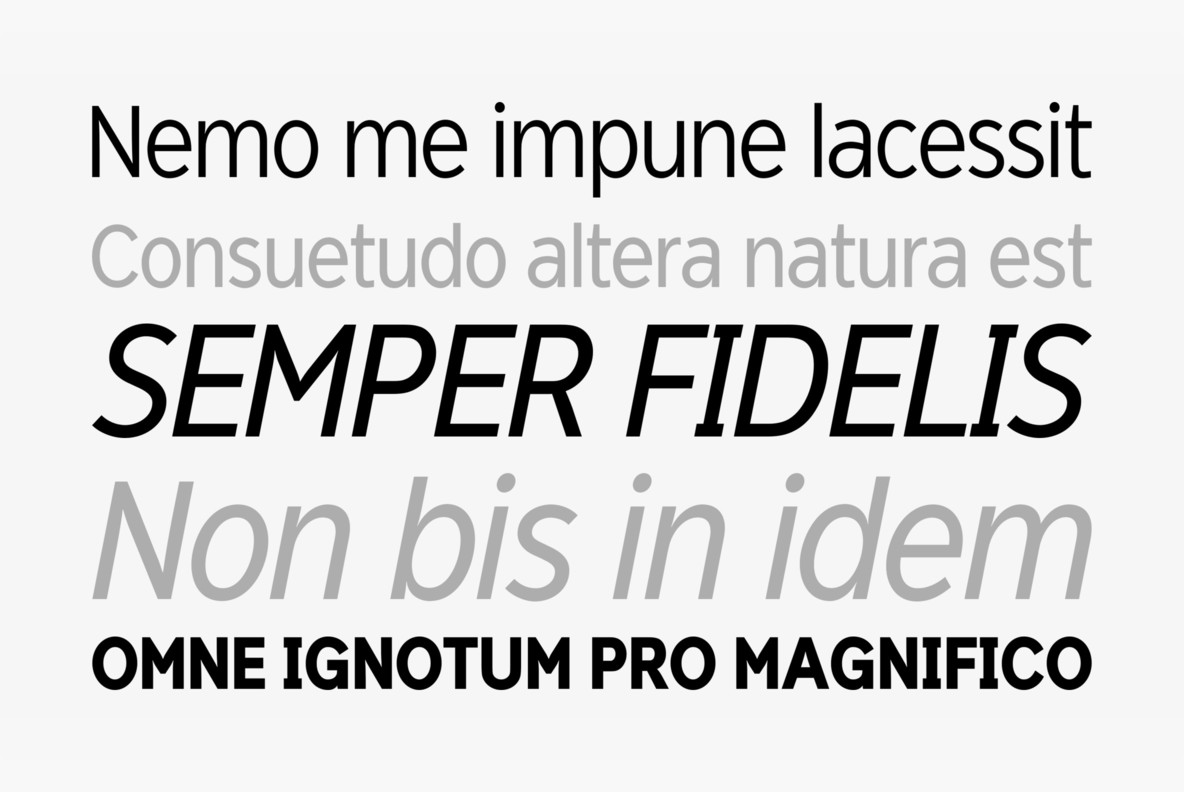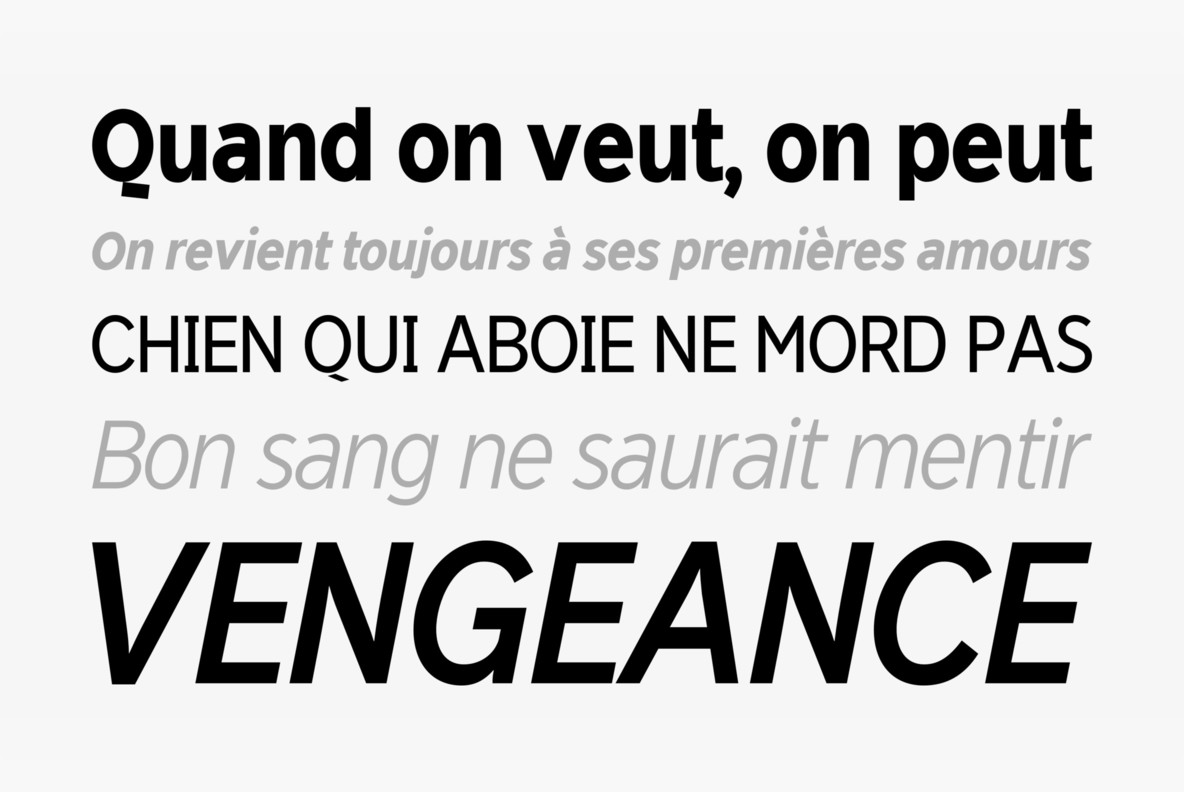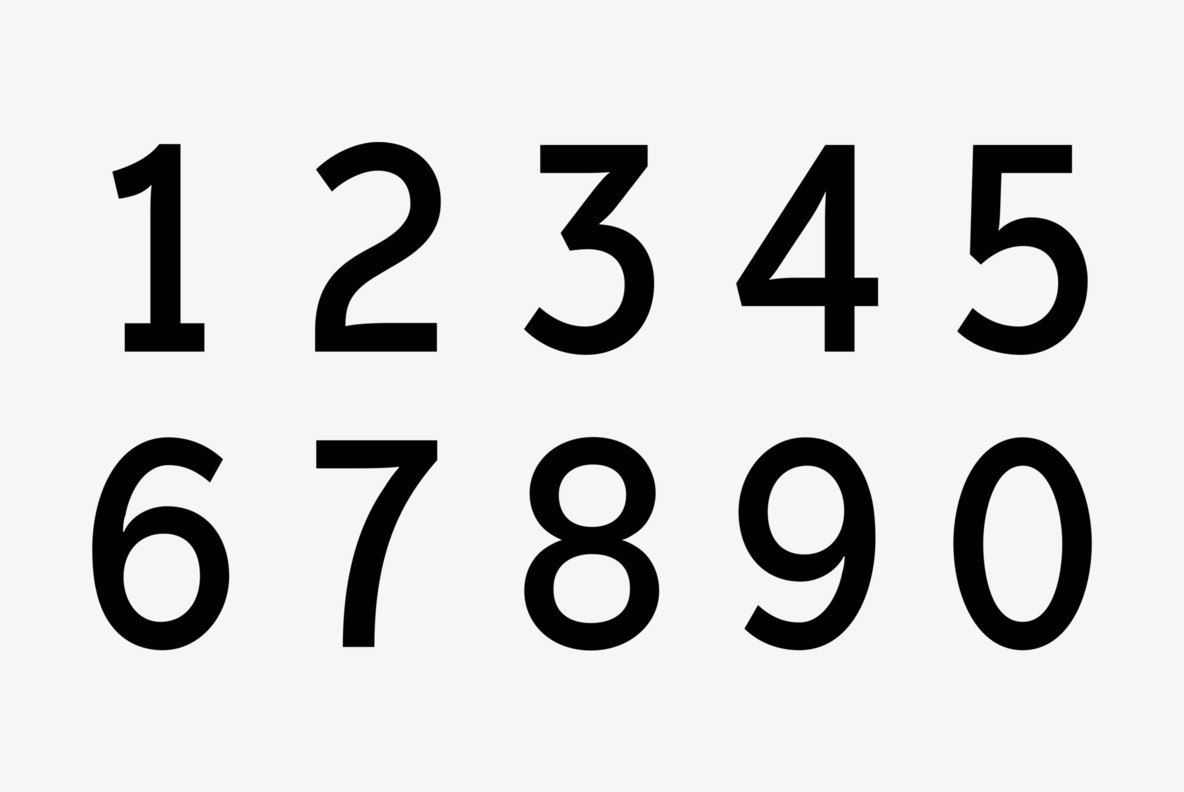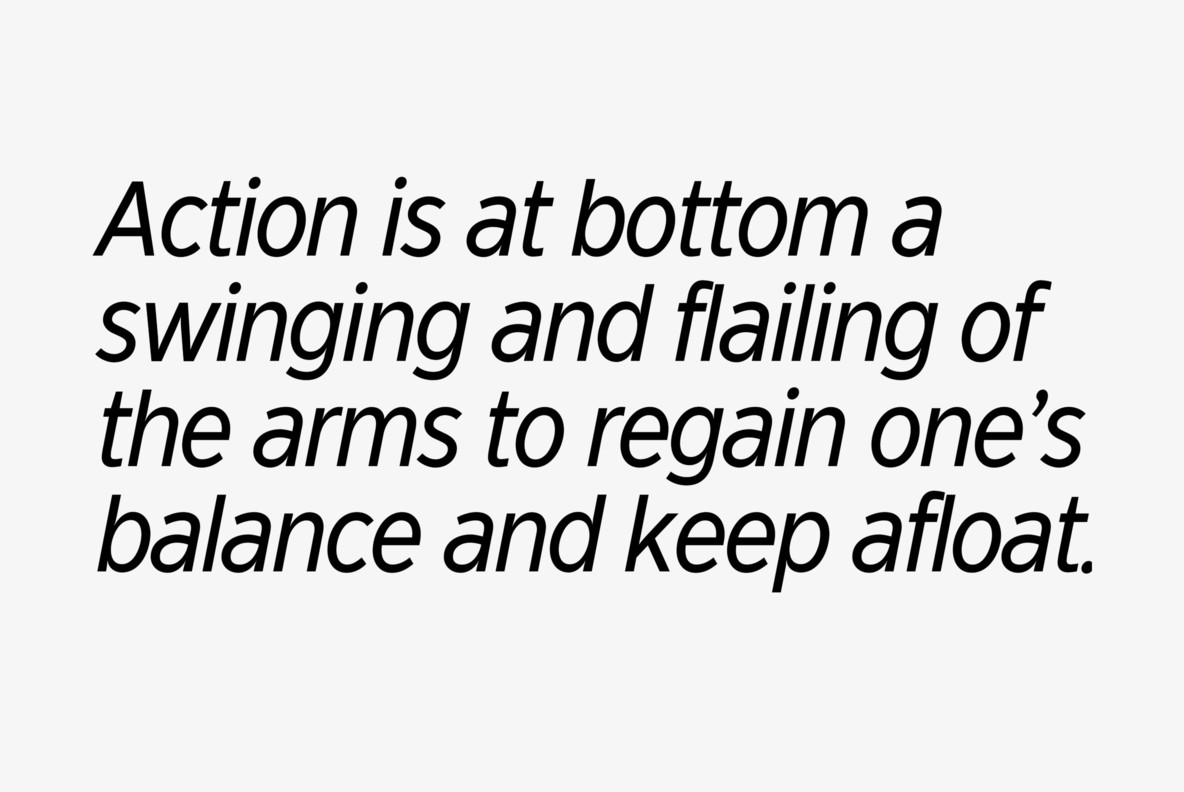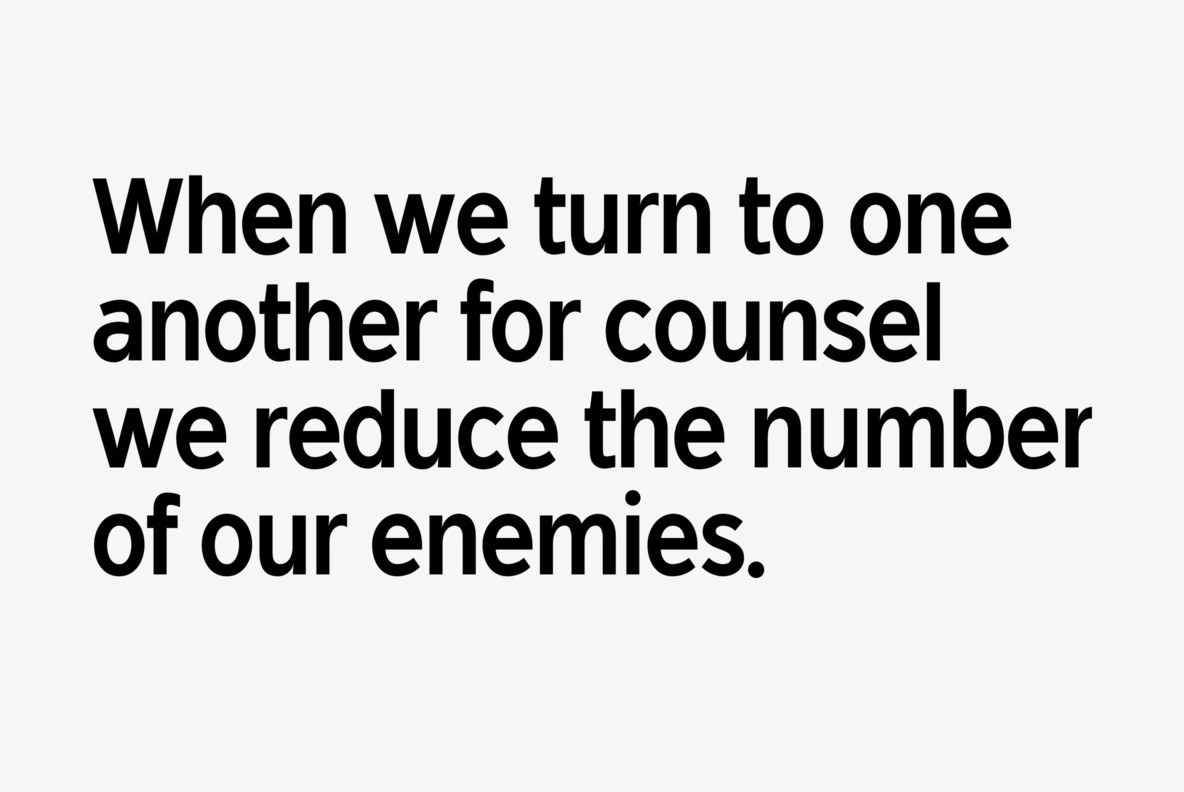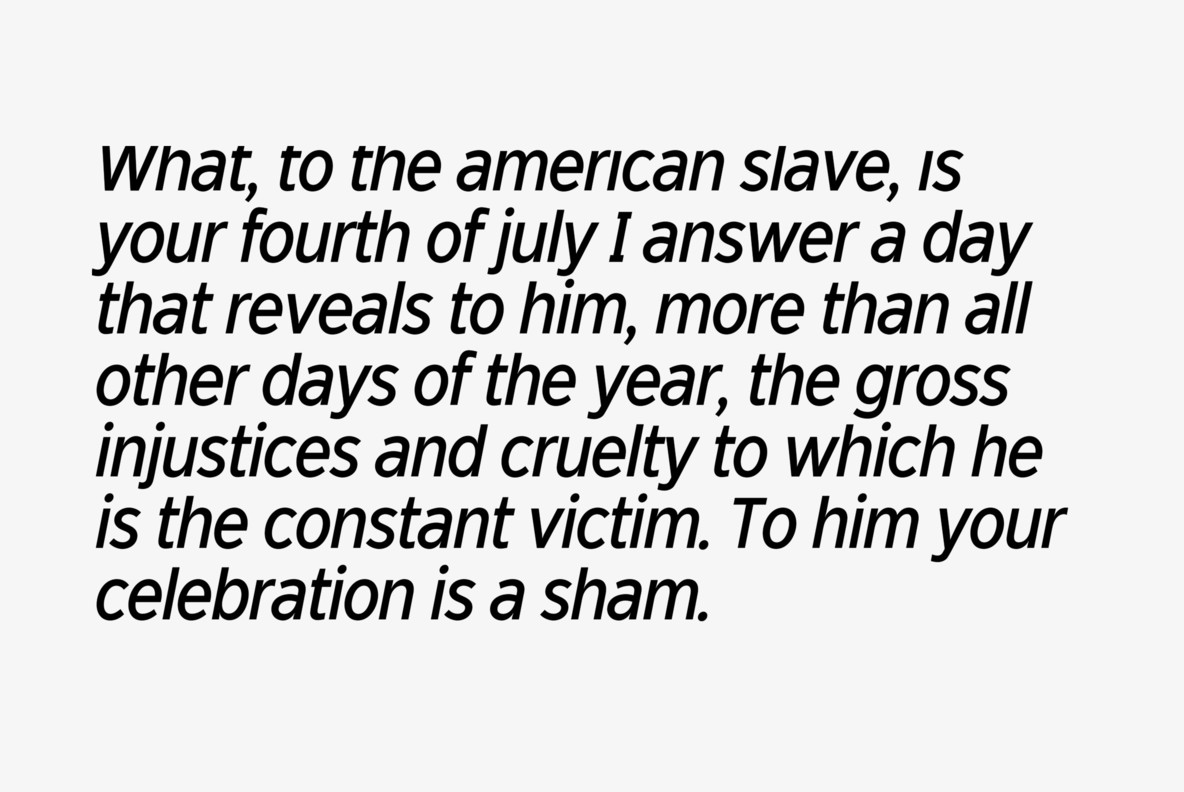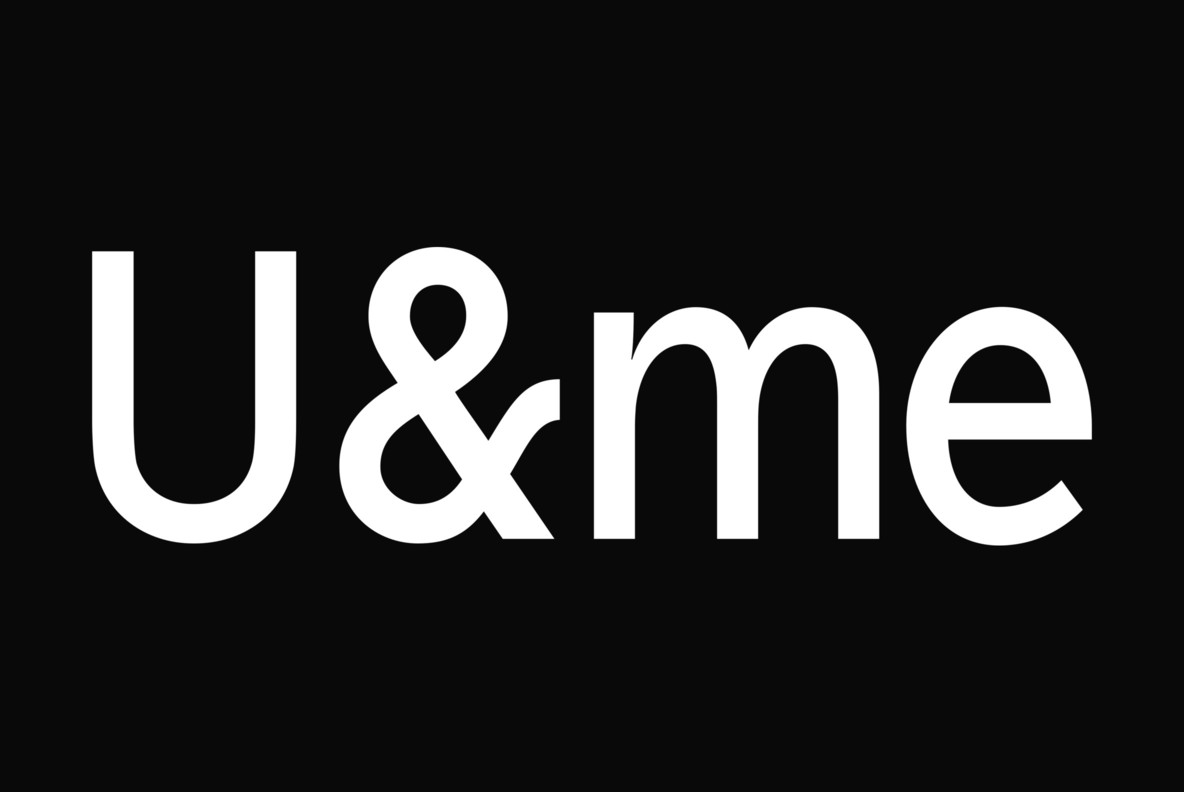
Dylan Condensed Font
Dylan is a Sans typeface in the best American tradition. In order to keep corners open and to make the font more readable in small sizes it has deep cuts where curves join straights. I designed 8 finely tuned weights with fitting italic sets.
The fonts includes full smallcaps, language support for most European languages plus Turkish, many fractions, numerator and denominators, Greek mathematical signs and many currency symbols. It is a versatile font that is well suited for many occasions, even for signage.